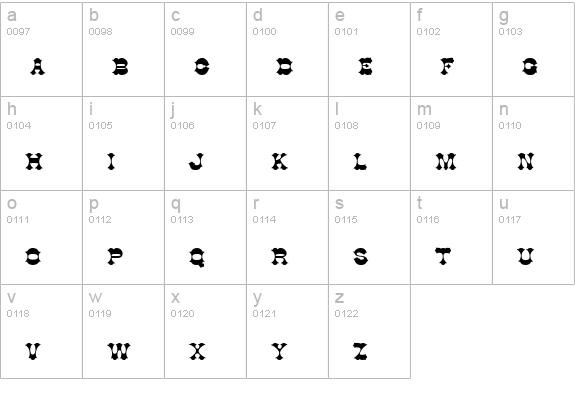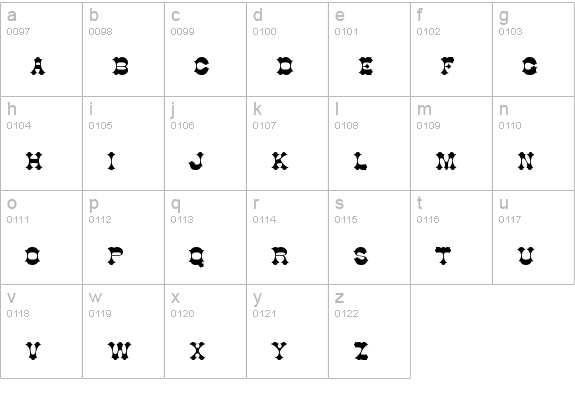
Cowboy Normal is the standard, neutral variant in the Cowboy typeface family \xE2\x80\x94 well suited to general body text, paragraphs, and standard typographic work.
Introducing Cowboy Normal font, a versatile and rugged typeface that captures the essence of the Wild West with its bold and distinctive letterforms. This font exudes a sense of adventure and nostalgia, making it perfect for a wide range of design projects, from vintage-inspired posters to modern branding. With its authentic cowboy-inspired style, Cowboy Normal font adds a touch of rustic charm to any design. Its sturdy serifs and strong strokes give it a bold and impactful presence, while maintaining a sense of classic elegance. Whether you're creating a saloon sign, a rodeo poster, or a western-themed logo, this font is sure to make a statement. Best of all, Cowboy Normal font is available for free download at FontsMarket.com. So saddle up and add a touch of frontier spirit to your designs with this versatile and eye-catching typeface.